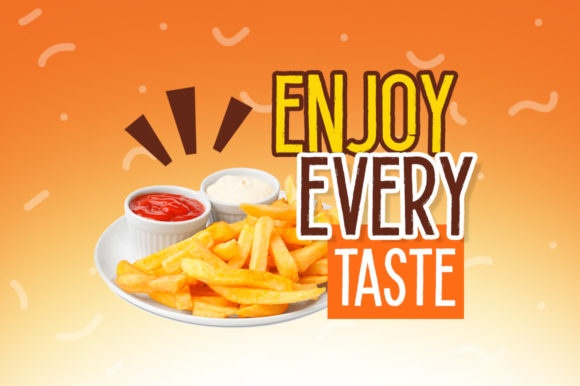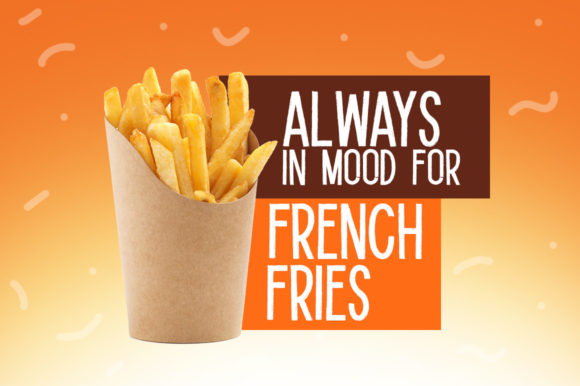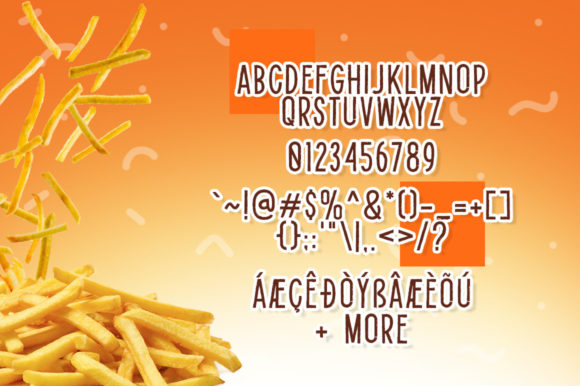
Introduction to Potato Lite Font
Have you ever stared at a blank canvas, waiting for inspiration to strike? I’m sure many designers can relate to that moment when creativity feels stuck. But then, something magical happens – you stumble upon the perfect design resource that brings your project to life. For me, that moment came when I discovered the delightful Potato Lite Font.
This charming display font is a game-changer for any creative project. Its playful, high-quality design makes it an excellent choice for cartoon-related designs, children’s games, and even personal branding. The best part? It’s completely free to download, making it an invaluable resource for designers on a budget. Whether you’re working on a commercial project or a personal passion project, the Potato Lite Font is sure to add a lovely touch to your design.
With its transparent background and versatile design, the Potato Lite Font is an essential addition to any designer’s toolkit. So, what are you waiting for? Get creative and see how this amazing font can elevate your next project!
Key Features of Potato Lite Font
- Transparent background for seamless integration into various designs
- Font size: 1,024 glyphs, covering a wide range of languages
- Unique characteristics: elegant, modern, and versatile design style
Honest Review: Potato Lite Font
I recently came across the Potato Lite Font, and I must say it’s a great addition to any design resource collection. This free download offers a high-quality, modern sans-serif font that’s perfect for any creative project.
- ✨ Clean and minimalist design makes it suitable for various applications
- ✨ Transparent background makes it easy to use with any image or design
- ⚠️ Limited character set might not be suitable for projects requiring extensive text
- ⚠️ Some users might find the font too plain or lacking in personality
Overall, I’m impressed with the Potato Lite Font’s quality and versatility. While it may not be the most exciting font, it’s a reliable choice for designers who need a clean and professional look. I’d definitely recommend it as a solid addition to any design resource collection.
Potato Lite Font
The Potato Lite Font is a high-quality design resource perfect for any creative project. It’s available for free download with a transparent background, making it easy to integrate into your design.
For optimal results, use the Potato Lite Font in combination with other high-quality design resources. Experiment with different font sizes, colors, and styles to create unique and eye-catching designs.
The Potato Lite Font is perfect for a wide range of creative projects, including logos, business cards, brochures, and more. Its clean and modern design makes it ideal for any business or personal project that requires a professional look.